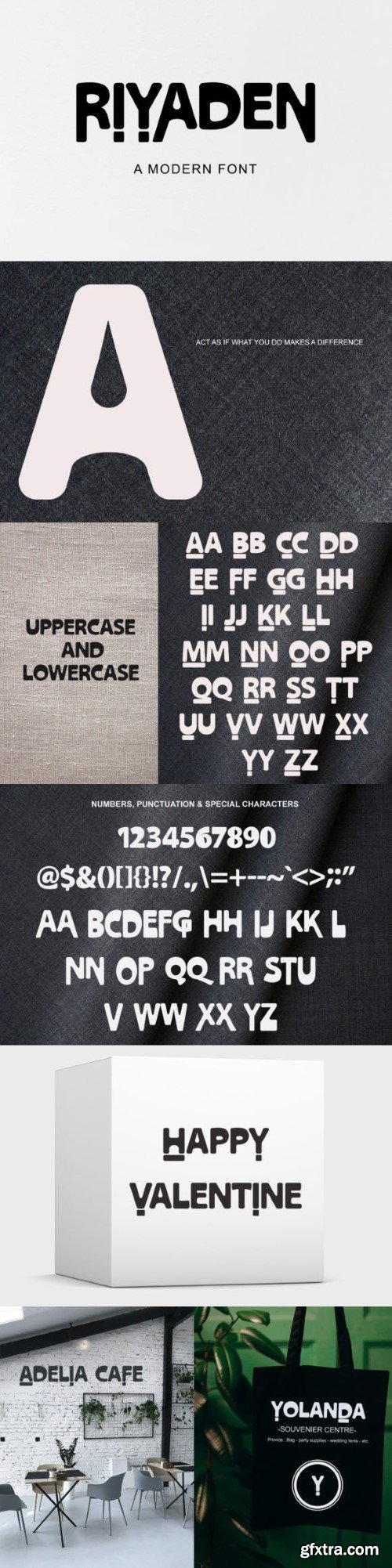
阿里云Riyaden字体
Riyaden is a bold and assertive serif font. No matter the topic, this font will be an
incredible asset to your fonts’ library, as it has the potential to elevate any creation.